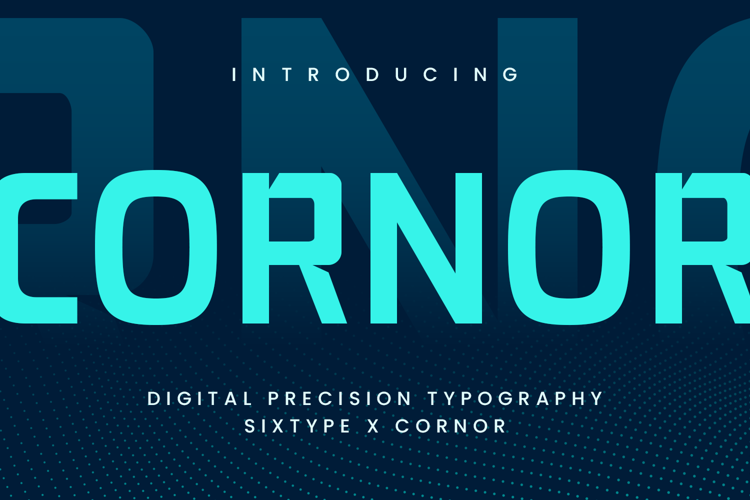
Cornor - Font
Cornor is a modern geometric display typeface crafted to provide clarity, balance, and a strong visual character. Featuring clean lines and structured letterforms, this font delivers a contemporary aesthetic that seamlessly integrates into modern branding and design projects. Ideal for designers seeking a stylish font for logo design, branding identity, posters, packaging, advertising, and digital graphics, Cornor offers a professional typography solution suitable for both print and screen. Its geometric construction imparts a confident and modern personality while ensuring excellent readability in display applications, making it a versatile choice for various creative endeavors.